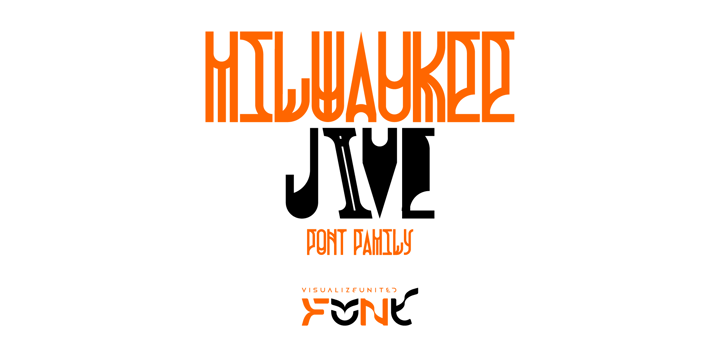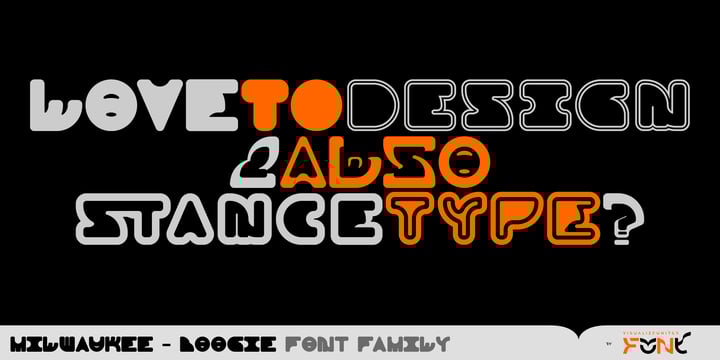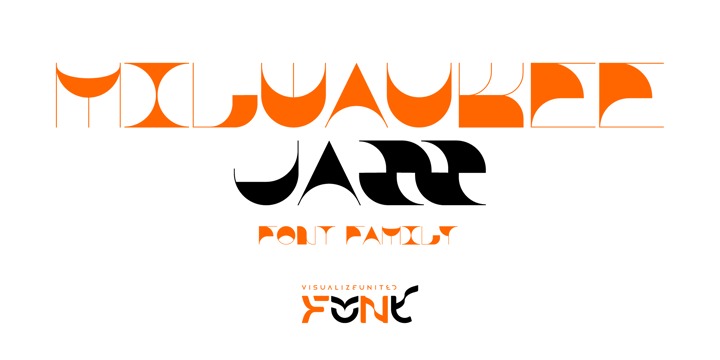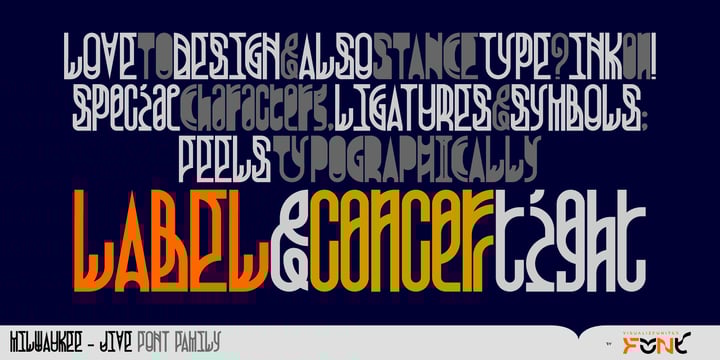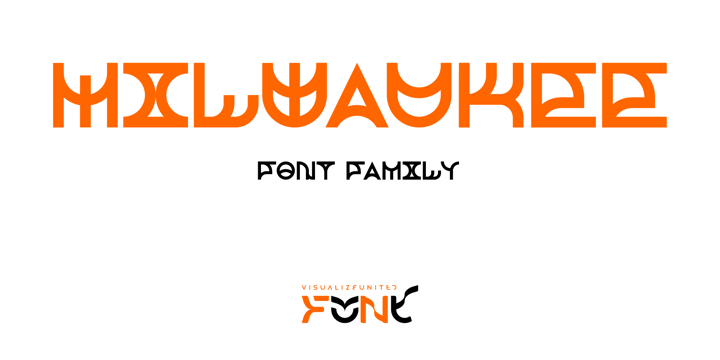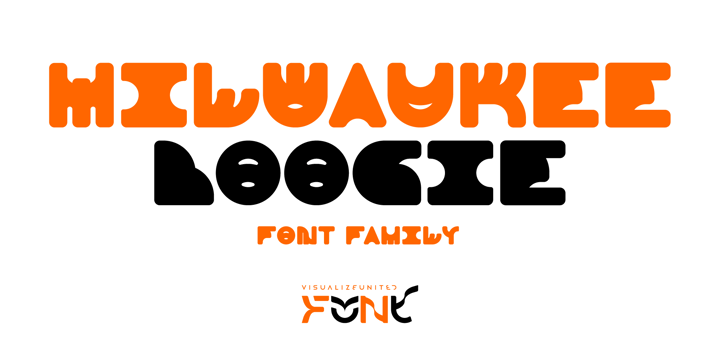
Milwaukee Super Font Family
Milwaukee, is a geometric typeface with an embellished-like touch. Designed in 2011, it consists of uppercase Latin & Extended Latin, Greek & Central European characters. It was initially inspired by Byzantine and Japanese typography and later from the cityscape of Milwaukee, thus its name. This Super Font Family comes in 23 styles and is suggested for logos, short titles, social media marketing, book covers, posters, labels, Music and other applications you will choose to go with.